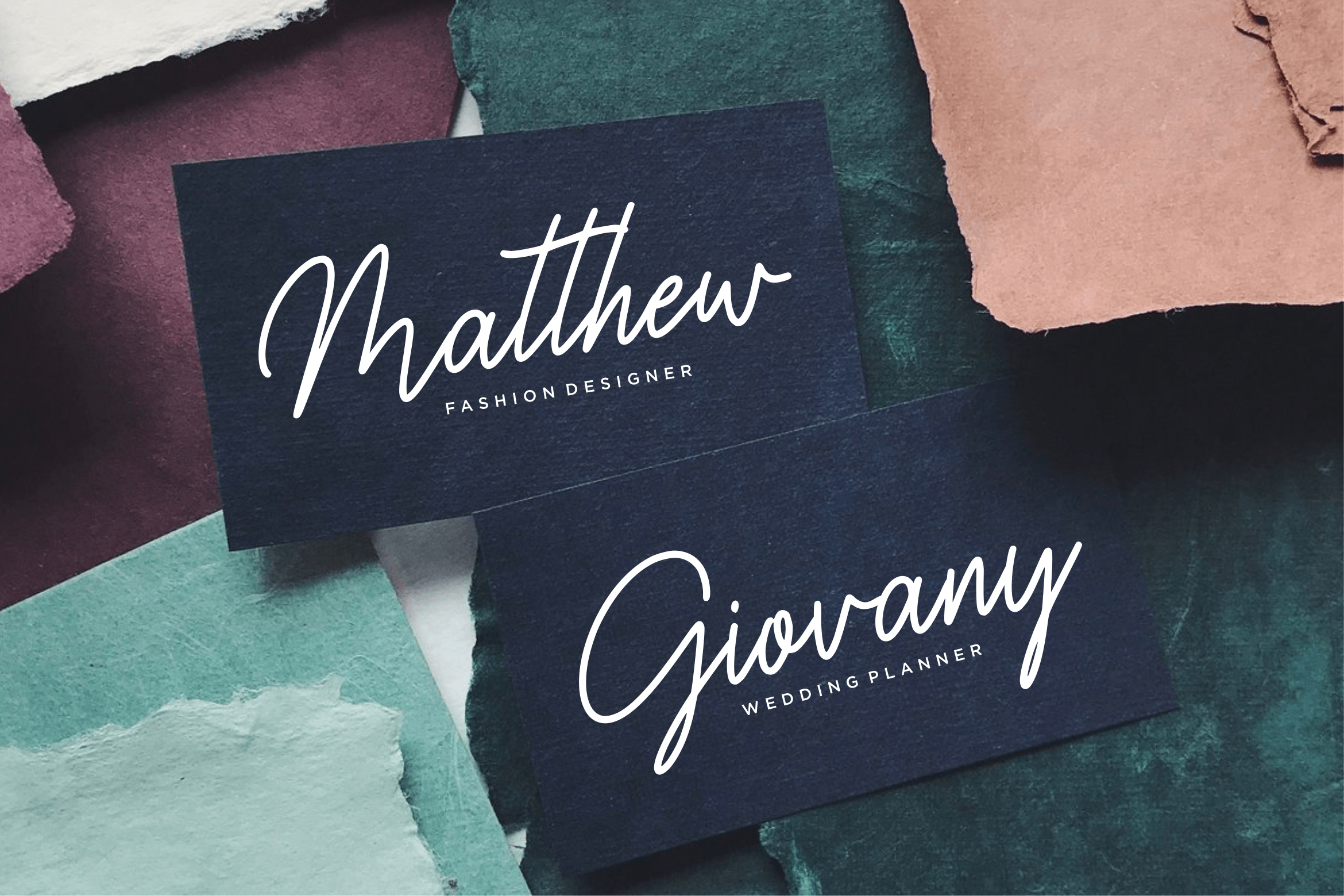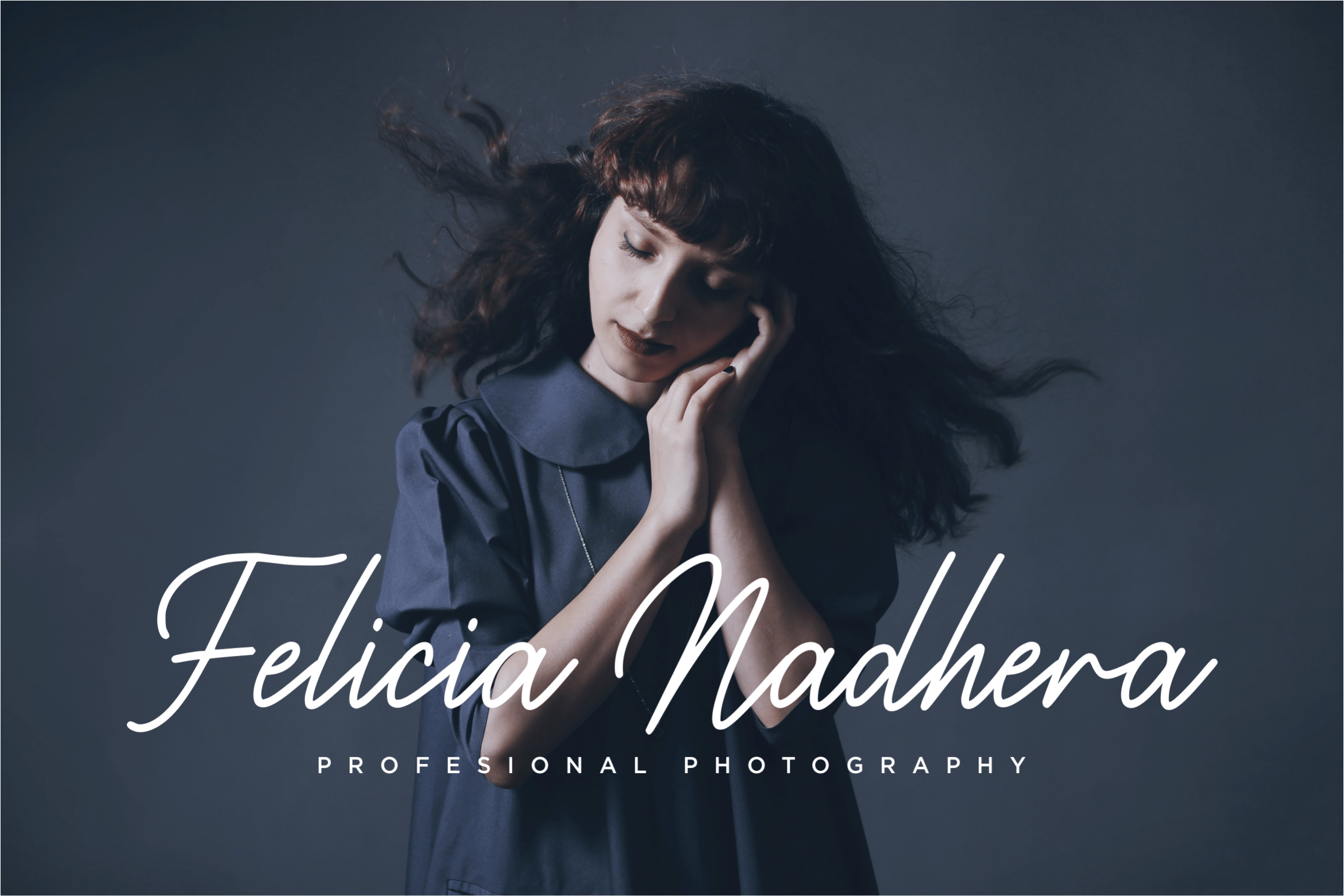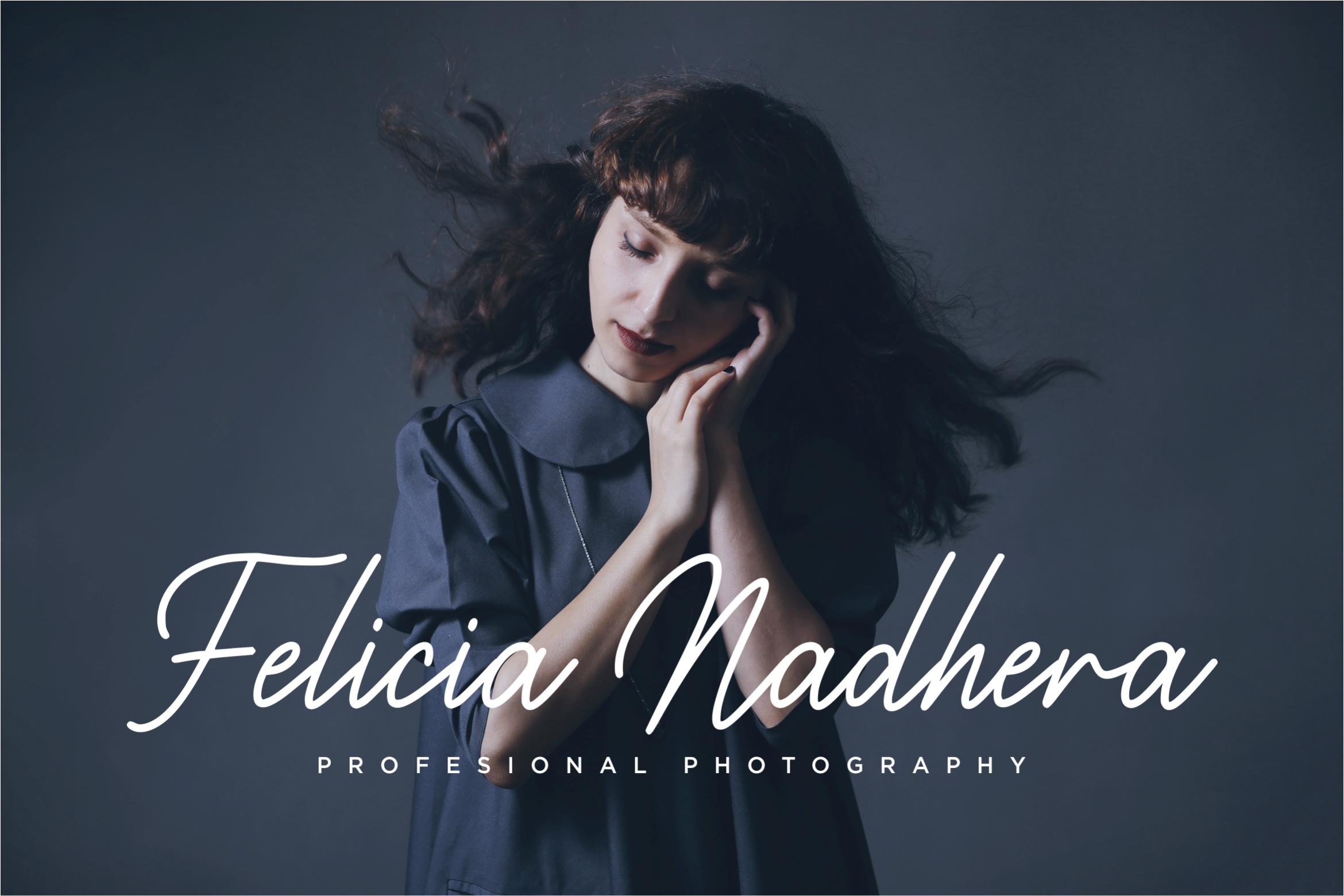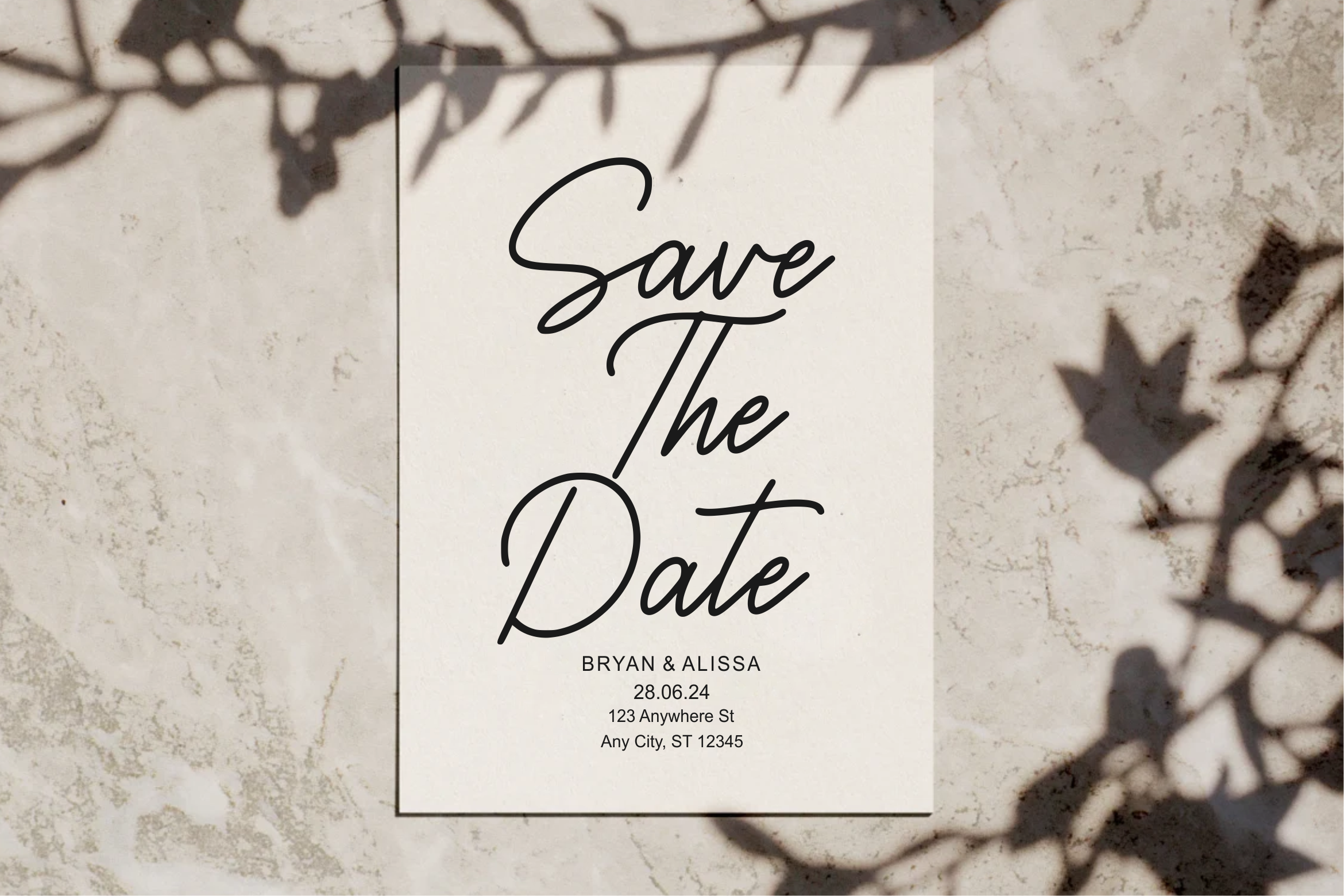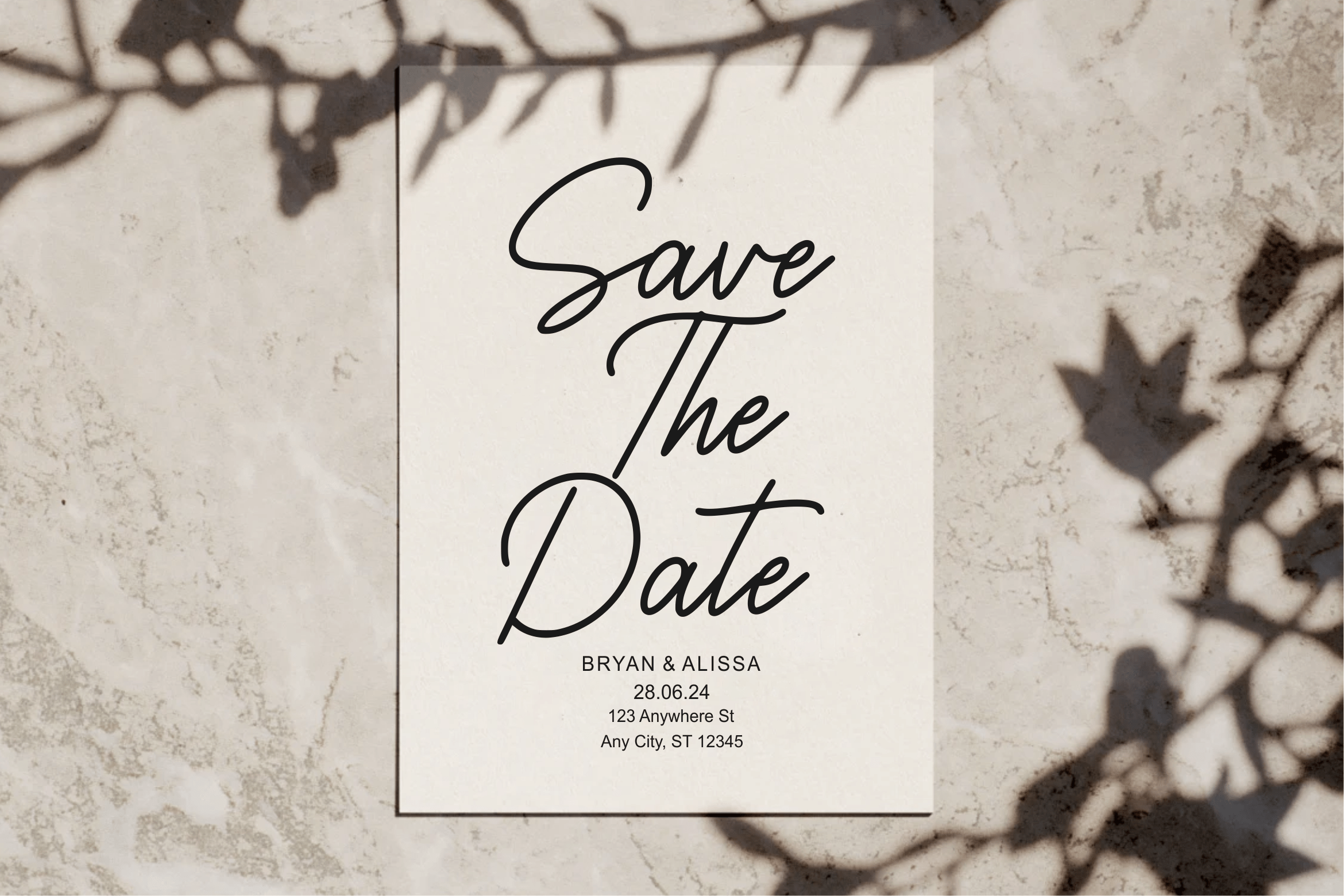
Wednesline Handwritten Font
This is a Monoline Handwritten Font. Wednesline is perfect for product packaging, branding project, megazine, social media, wedding, or just used to express words above the background.